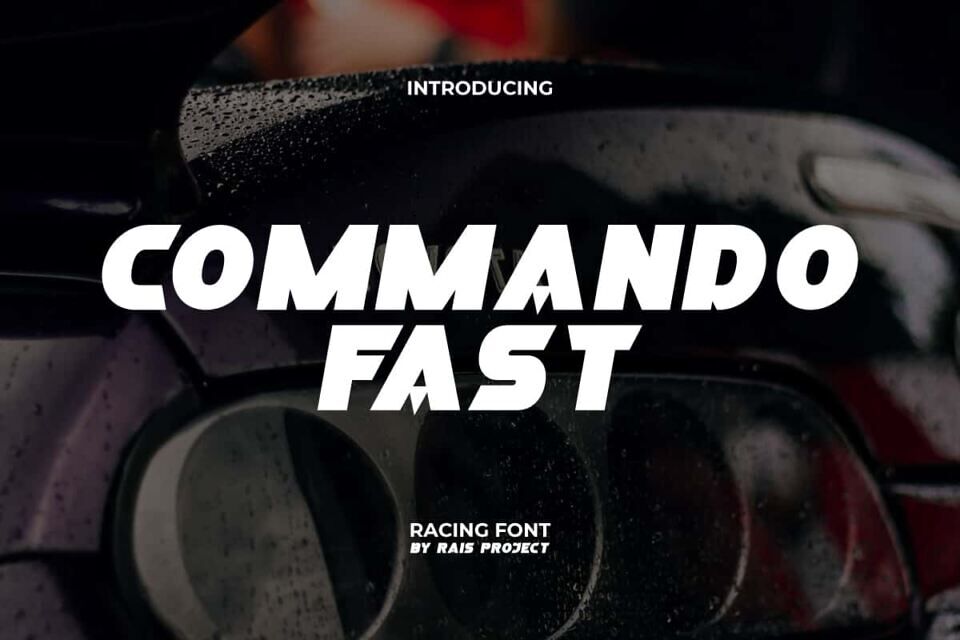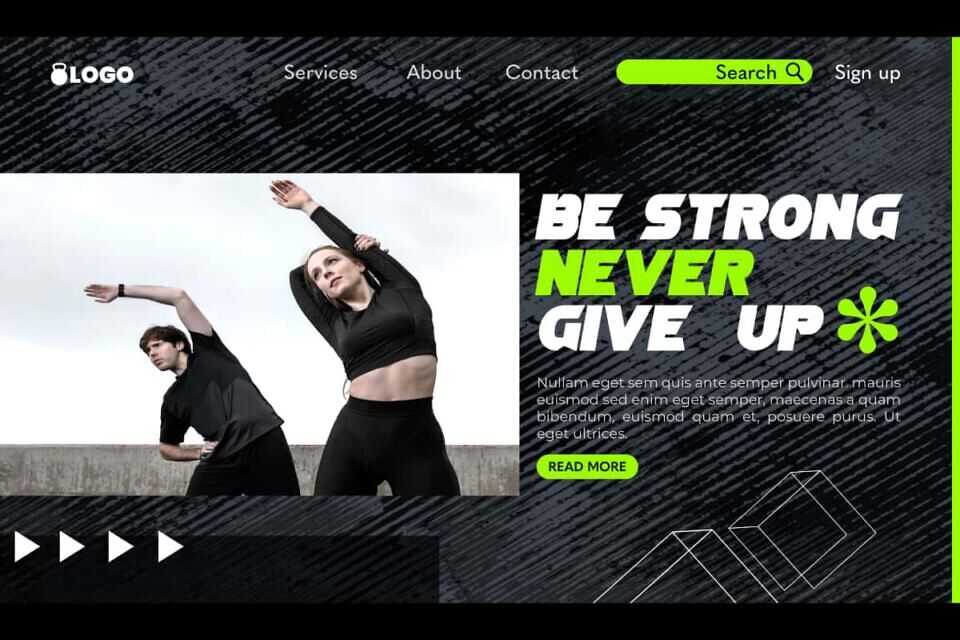
Commando Fast Font
Commando Fast Font is a war play game and automotive themed font with bold and sharp characters, perfect for making designs look on point!. This font has a character that can make your design stand out and be dominant. It will look good on poster, signage, stationery, label, custom design, invitation,  product packaging, quotes, web, and more!
Commando Fast Font includes a full set of ALL CAPS for Uppercase and Lowercase Letters, Numerals, and large range of Punctuation. This bold font will steal the attention of many people and will be suitable for various industries, such as fashion, game, sports, movie, music, cafe, event or festival, printing, publishing, etc.